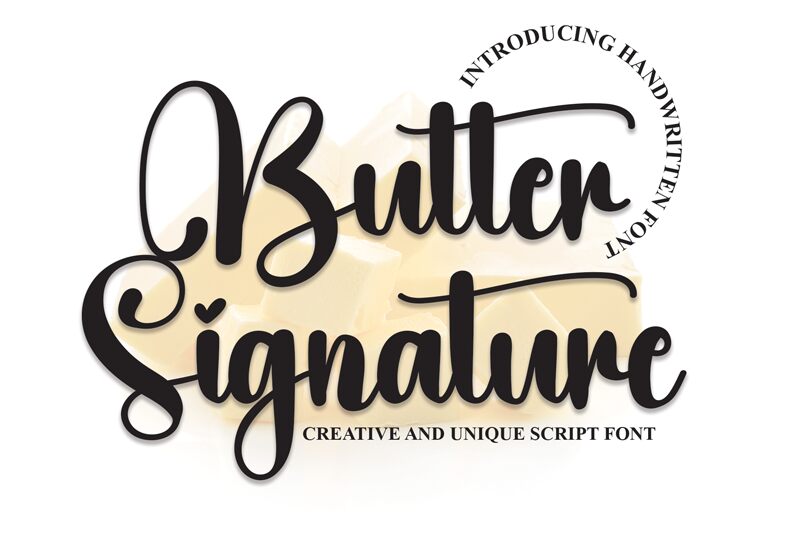
Butter Signature
Butter Signature, a captivating calligraphic font created by Scratchones, exudes elegance and effortless sophistication. This distinctive typeface boasts striking flourishes and a seamless, flowing aesthetic that captivates the eye. The fluid, script-like strokes convey a sense of artistry and personal expression, making it a versatile choice for a wide range of design applications.
Butter Signature's versatility shines through in its ability to elevate branding, stationery, and packaging designs with its refined, signature-inspired appearance. Its expressive and dynamic qualities lend themselves particularly well to luxury, fashion, and lifestyle-focused projects, where the font's inherent sophistication and elegance can truly shine.